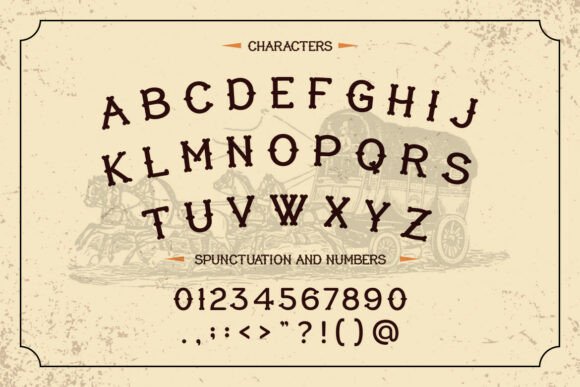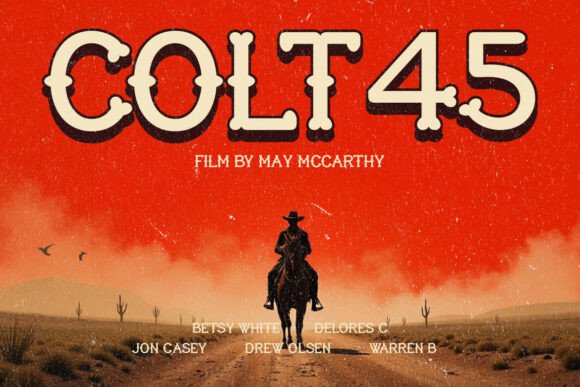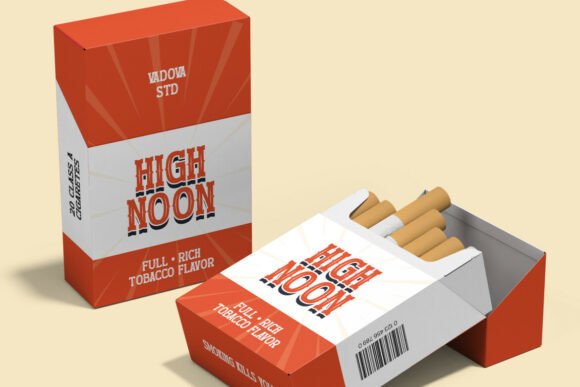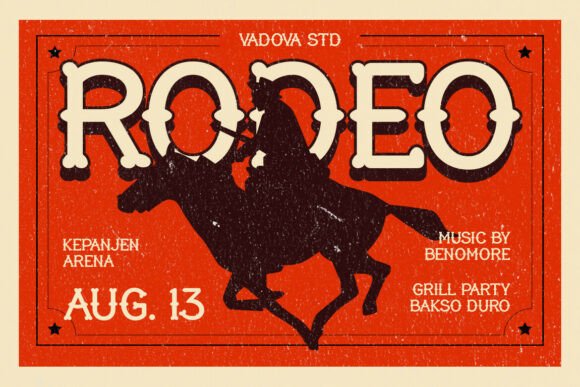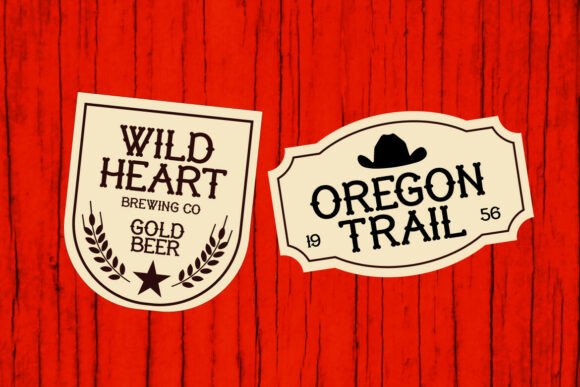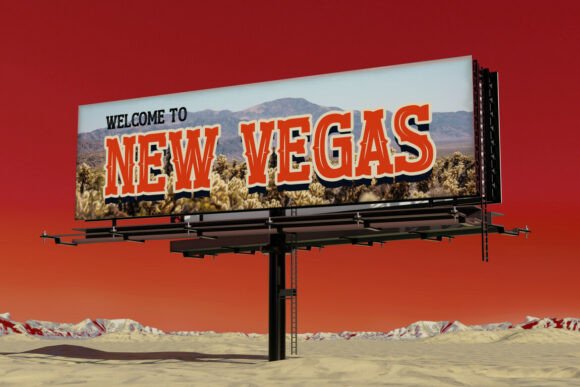
The Wild West of Typography
Imagine you’re flipping through a dusty old album, filled with vintage rodeo posters and faded photographs of bygone eras. The worn, weathered look of those old signs and billboards sparks something within you, and you can almost smell the leather and sweat of the wild west. That’s the kind of feeling Bronco Ridge Font is designed to evoke – a sense of rugged individualism and classic American charm.
Bronco Ridge Font is a bold, display typeface that captures the essence of the frontier, with strong letterforms and spurred serifs that scream “ride ’em, cowboy!” This versatile font is perfect for designers looking to add a touch of the wild west to their projects, from themed event branding to western film titles and rustic merchandise. With its weathered aesthetic and classic charm, Bronco Ridge Font is a valuable tool for anyone looking to bring a bit of heritage and character to their creative work.
Bronco Ridge Font Key Features
- Font Family: Bronco Ridge is a serif font family.
- Unique Characteristics: Features a rustic, vintage feel with subtle texture and distressed effects, giving it a unique and eye-catching appearance.
Designer Review: Bronco Ridge Font
Overall, I think Bronco Ridge Font is a great addition to any designer’s toolbox. Here are a few things that stand out:
- ✨ Its unique blend of modern and rustic elements creates a visually interesting and versatile font that can be used for a variety of applications.
- ✨ The font’s bold and chunky feel makes it perfect for headings and titles, while its subtler variations are great for body text.
- ✨ The font is highly customizable, with a wide range of weights and styles to choose from.
- ⚠️ The font may not be suitable for all types of content, particularly those that require a more formal or traditional look.
- ⚠️ Some of the font’s variations may feel a bit too bold or overpowering, so be careful not to overdo it.
Overall, I would recommend Bronco Ridge Font to designers who are looking for a unique and versatile font that can add some visual interest to their projects.
The Bronco Ridge font is ideal for creating a rugged, outdoorsy feel in your designs. Some common use cases include:
- Outdoor adventure branding and marketing materials.
- Western-themed designs, such as cowboy boots or rodeo events.
- Adventure travel websites and social media campaigns.